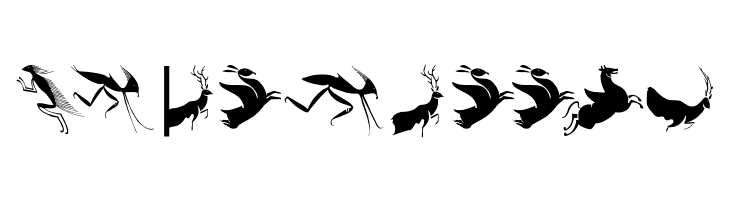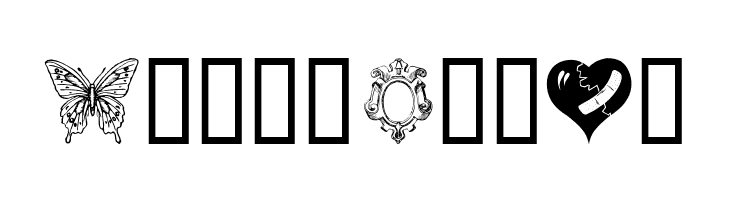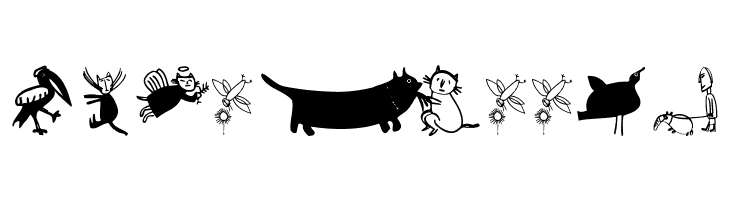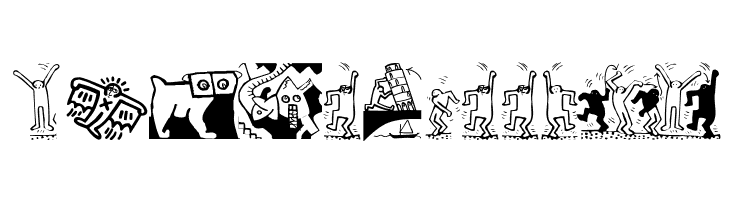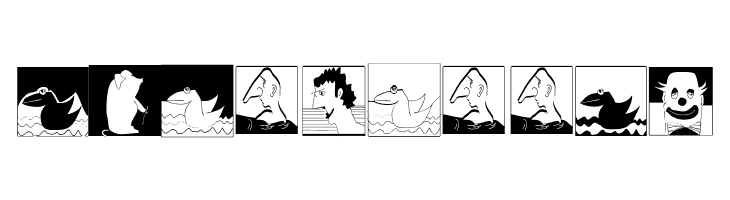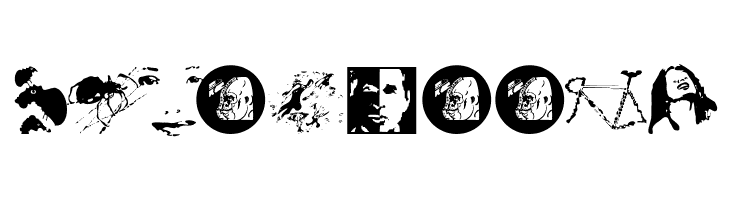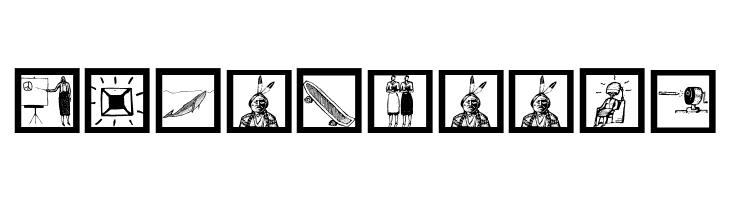
A bold pictogram dingbat font featuring diverse icons and symbols.
A decorative font with mythical creature silhouettes, perfect for fantasy-themed projects.
Eclectic pictogram and symbol dingbat font.
Hand-drawn, doodle-style font with playful illustrations.
A collection of artistic illustrations with bold, graphic style and high contrast.
A quirky, illustrative display font made of cartoonish sketches.
A decorative dingbat font with assorted vector illustrations.
A decorative symbol font blending Celtic, astrological, and mythological imagery.
Circus-inspired display font featuring detailed silhouette illustrations.
A pictogram dingbat font with hand-drawn illustrations and landmarks.